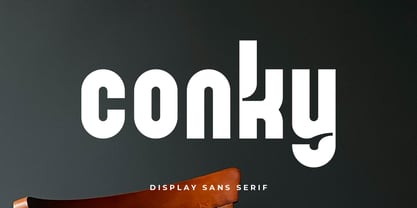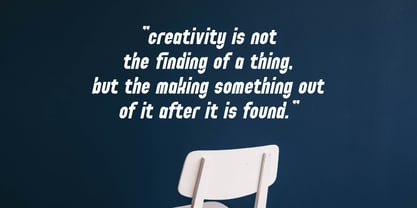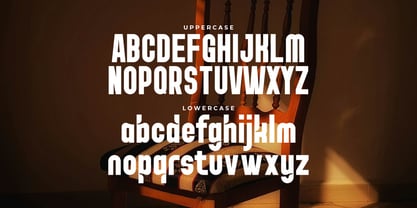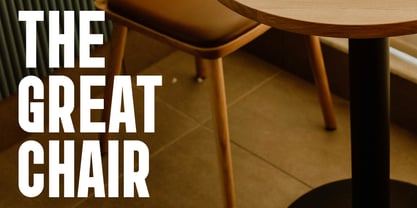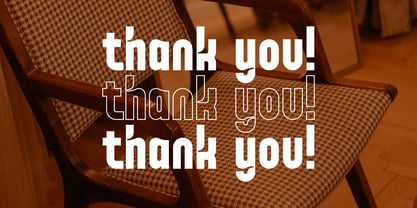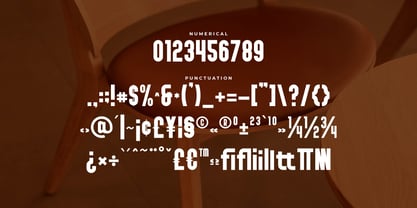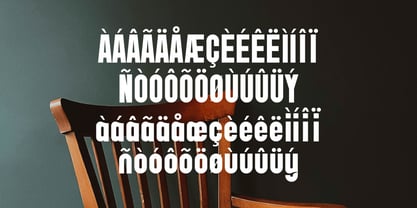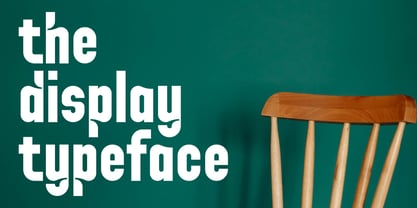
Conky
by Artiveko
The Conky Font Family was designed by Iwan Alwan and published by Artiveko. Conky contains 2 styles and family package options. More about this family
Conky is a creative sans serif typeface that infuses a fresh, friendly, and modern personality into your designs. Featuring smooth curves, balanced proportions, and subtle playful details, Conky offers a clean yet expressive appearance that stands out while maintaining readability. This versatile typeface is perfect for branding, logos, packaging, social media graphics, posters, and various creative digital projects. Conky adapts seamlessly to both bold headlines and clean layouts, making it an excellent choice for lifestyle brands, creative studios, startups, and contemporary visual identities seeking to convey an engaging and unique presence. More than just a font, Conky serves as a creative voice that adds warmth and personality to modern design.
Designers: Iwan Alwan
Current Foundry: Artiveko